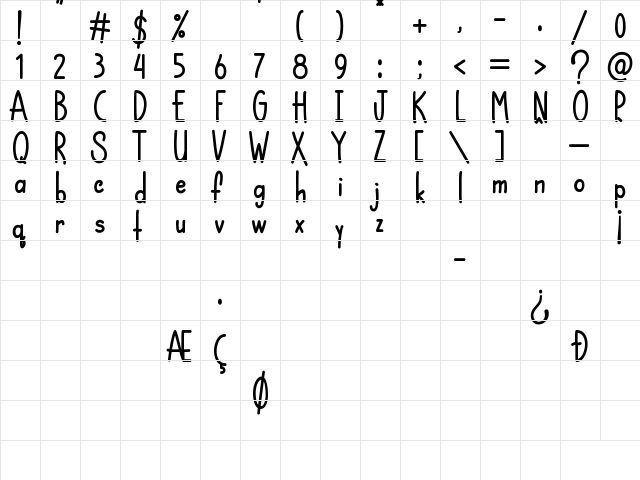
Chocolatte Regular
| Designer | Aldedesign 2019 |
Design Context for Chocolatte Typeface
Chocolatte offers clean, dependable letterforms without strong stylistic allegiance, making it a practical choice for designers who need flexibility.